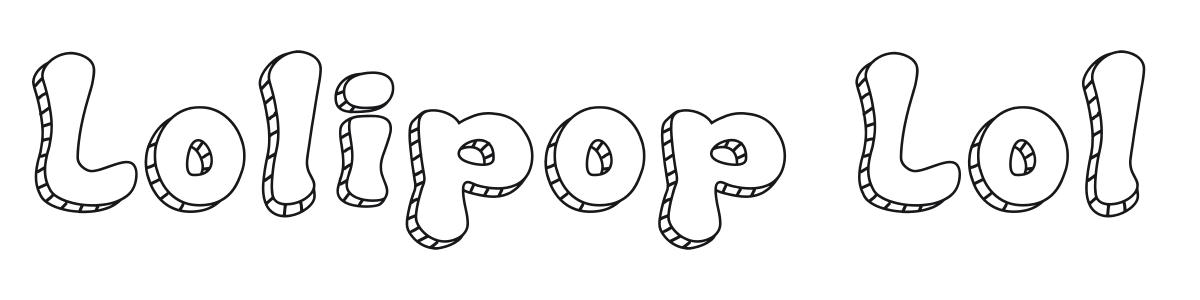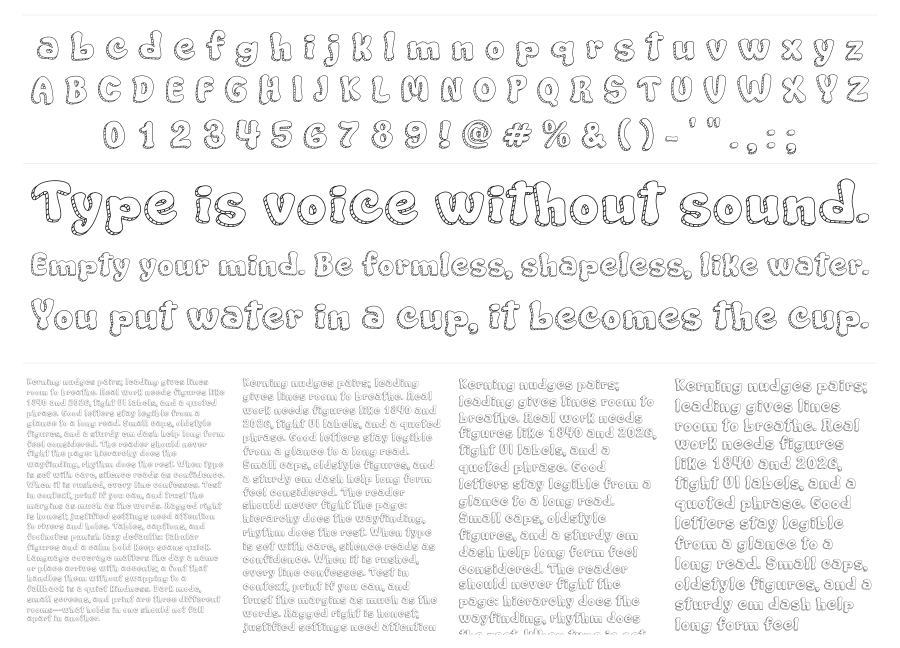
Lolipop Lol
Lolipop Lol is a bold, bubbly outline font with a distinctive dashed inner border that makes each character look like it was stitched or piped from frosting. The rounded, chunky forms lean into candy-sweet playfulness without tipping into illegibility. It works best at large sizes where all that decorative detail can breathe.